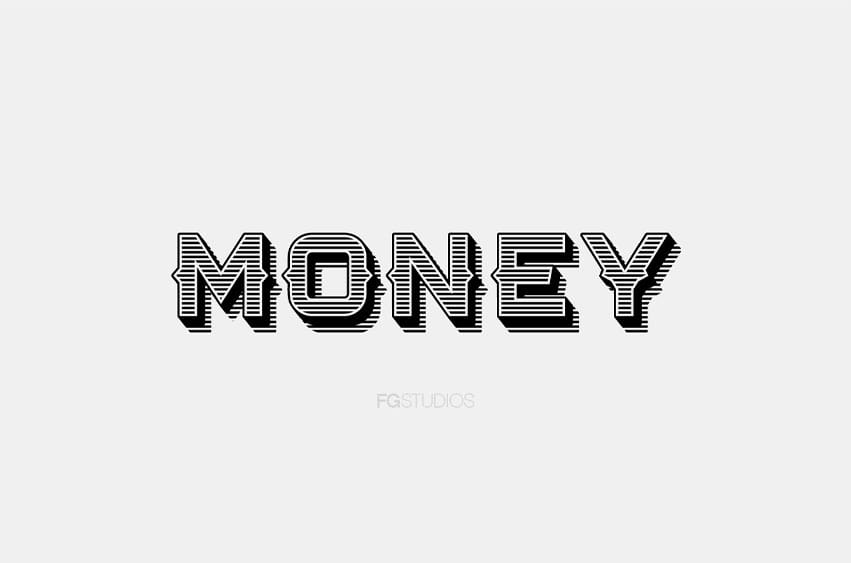
Money Font Display Font.
It is convenient for any type of projects, posters, or social media content that is promoting advertisements, for example, personal or freelance work, and much more!